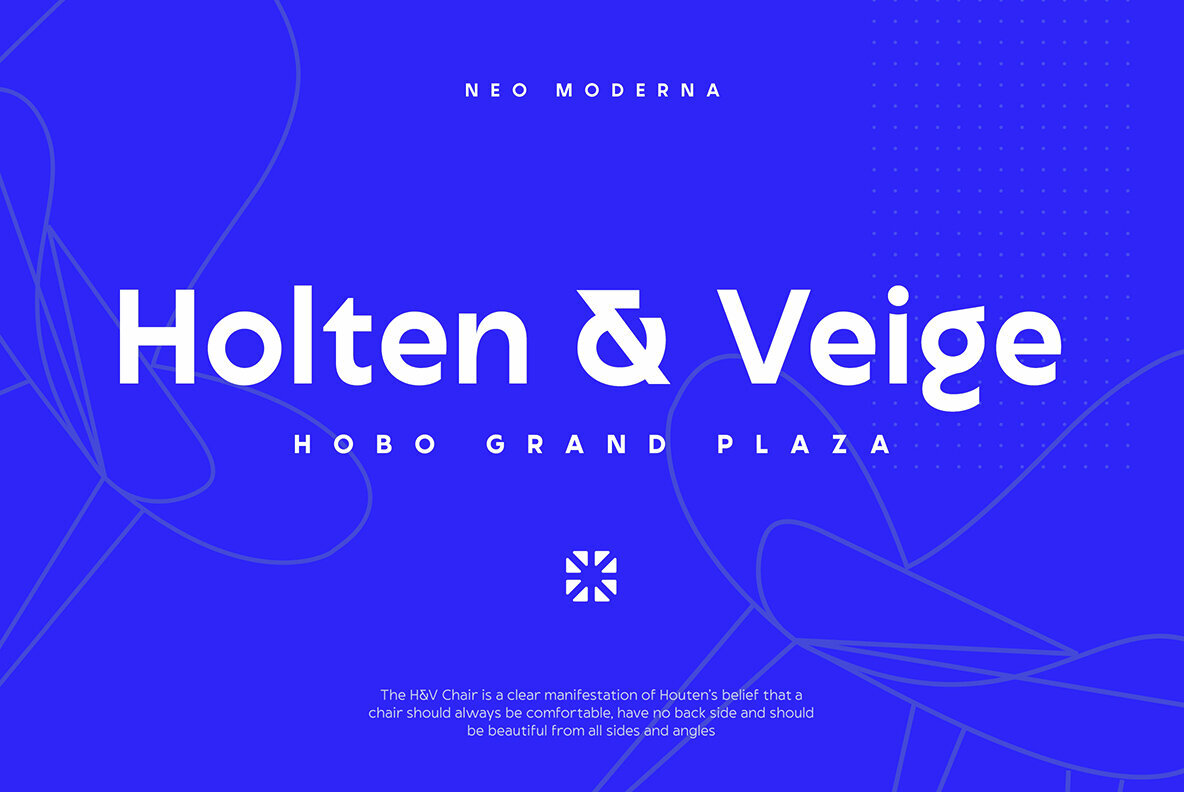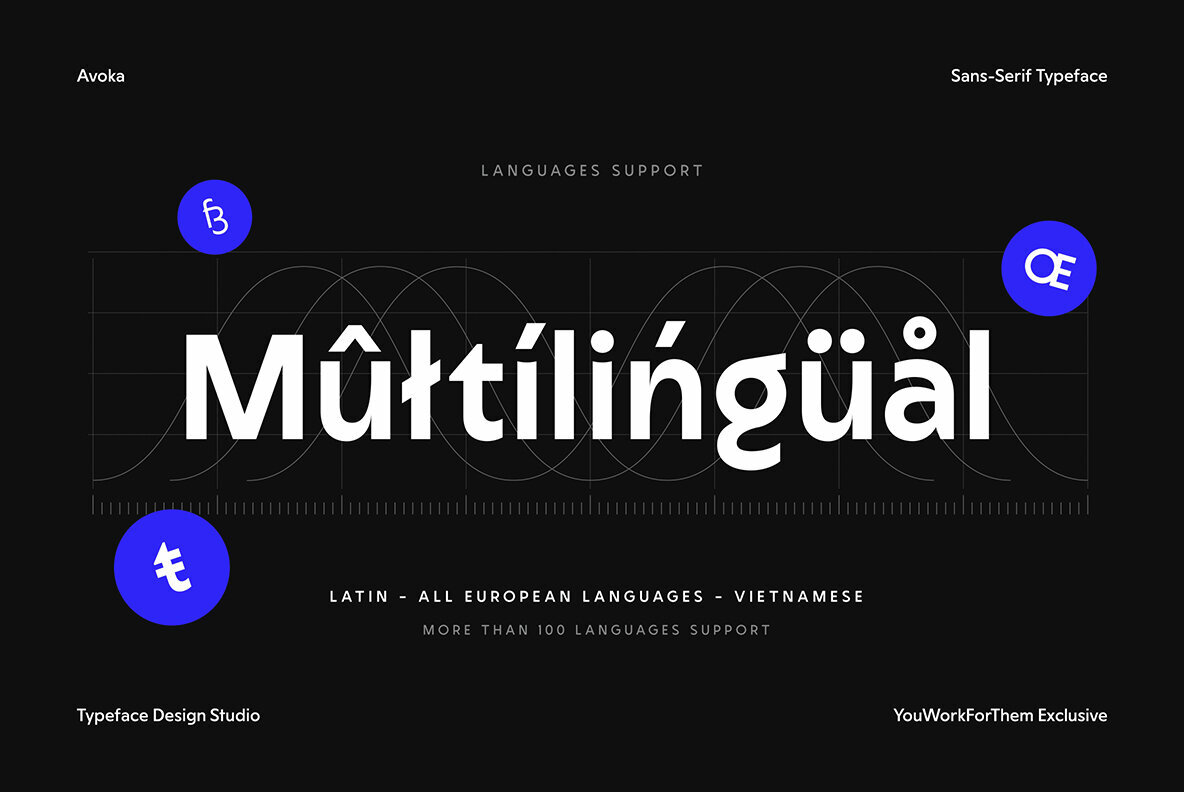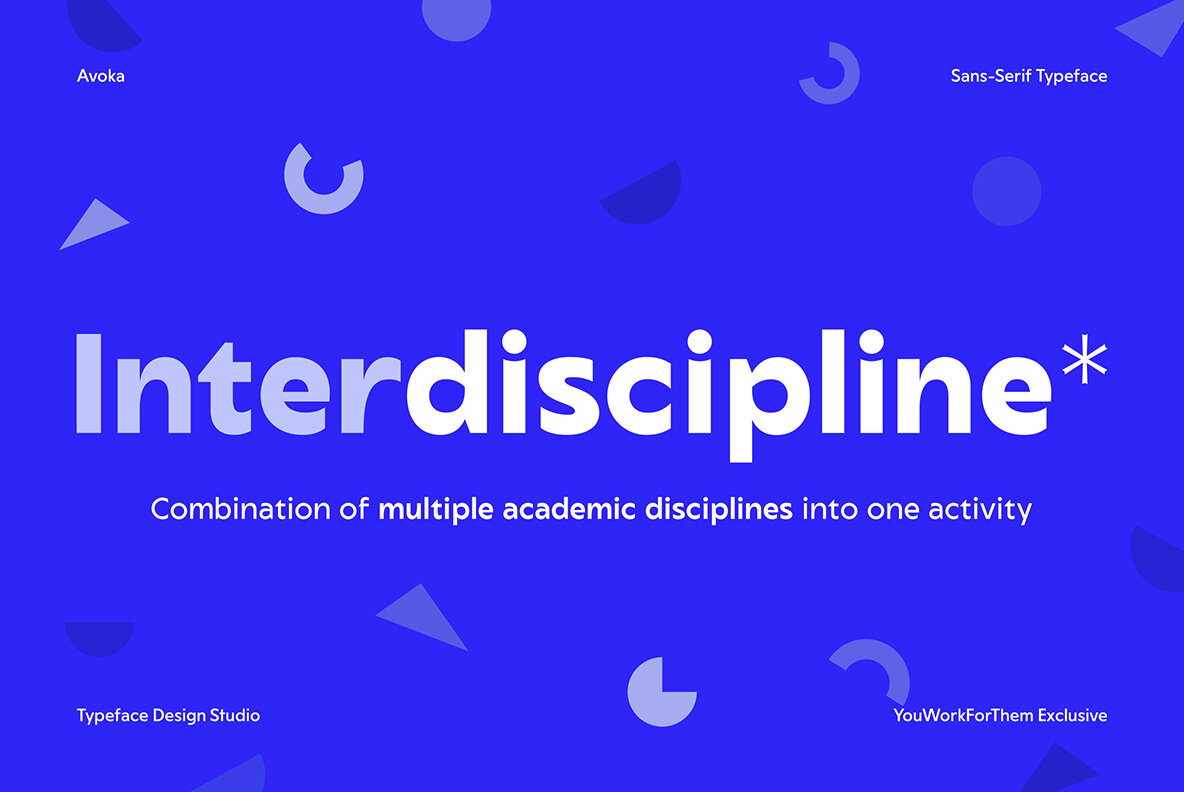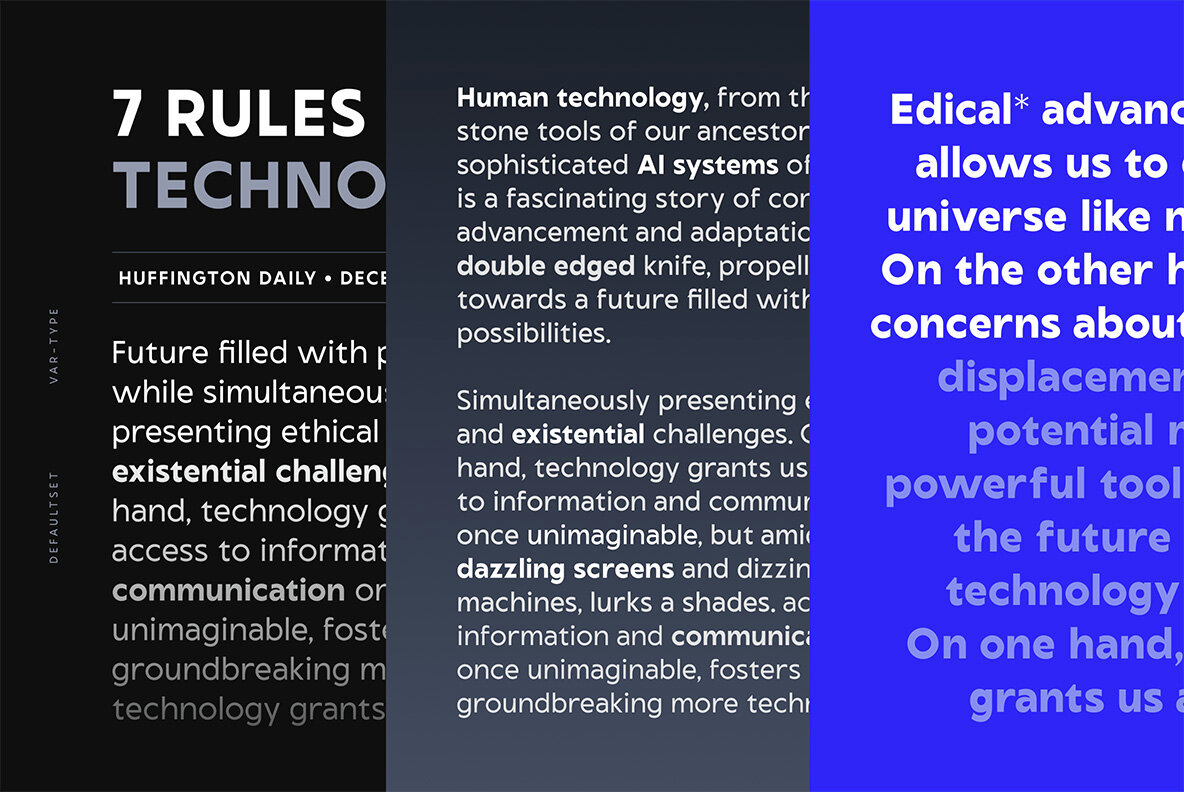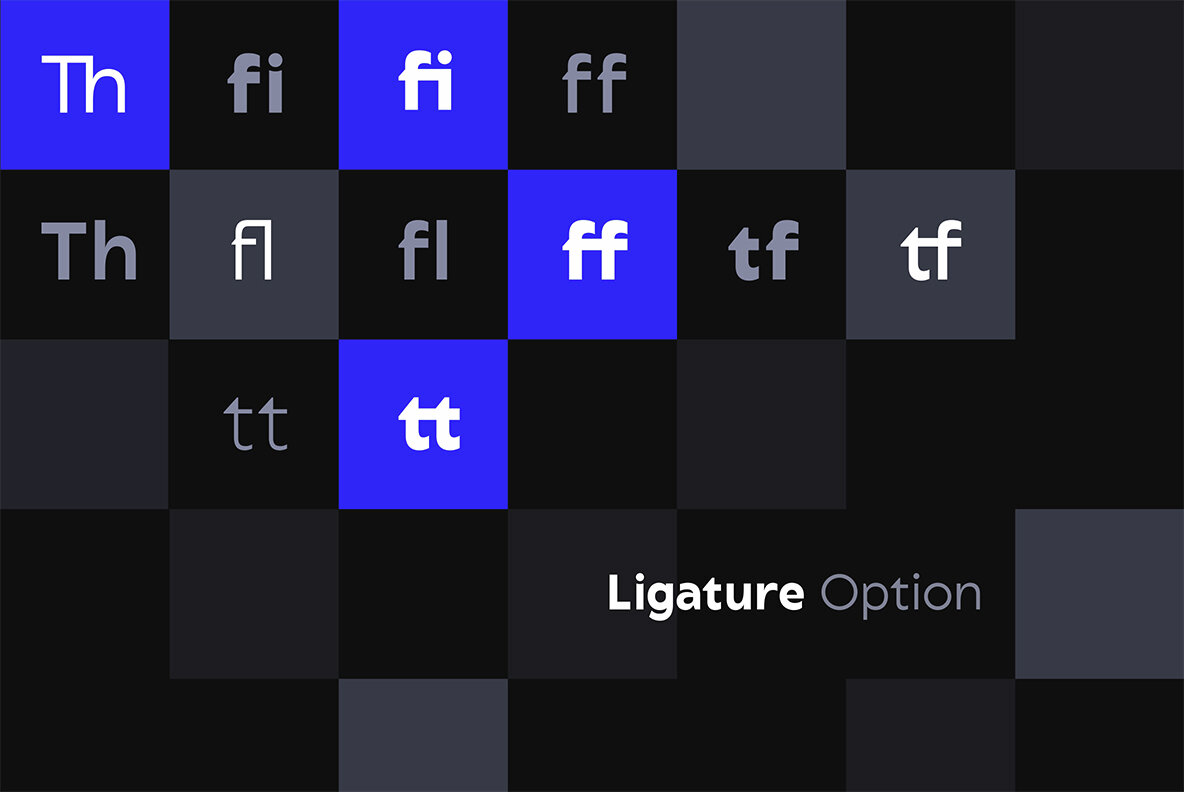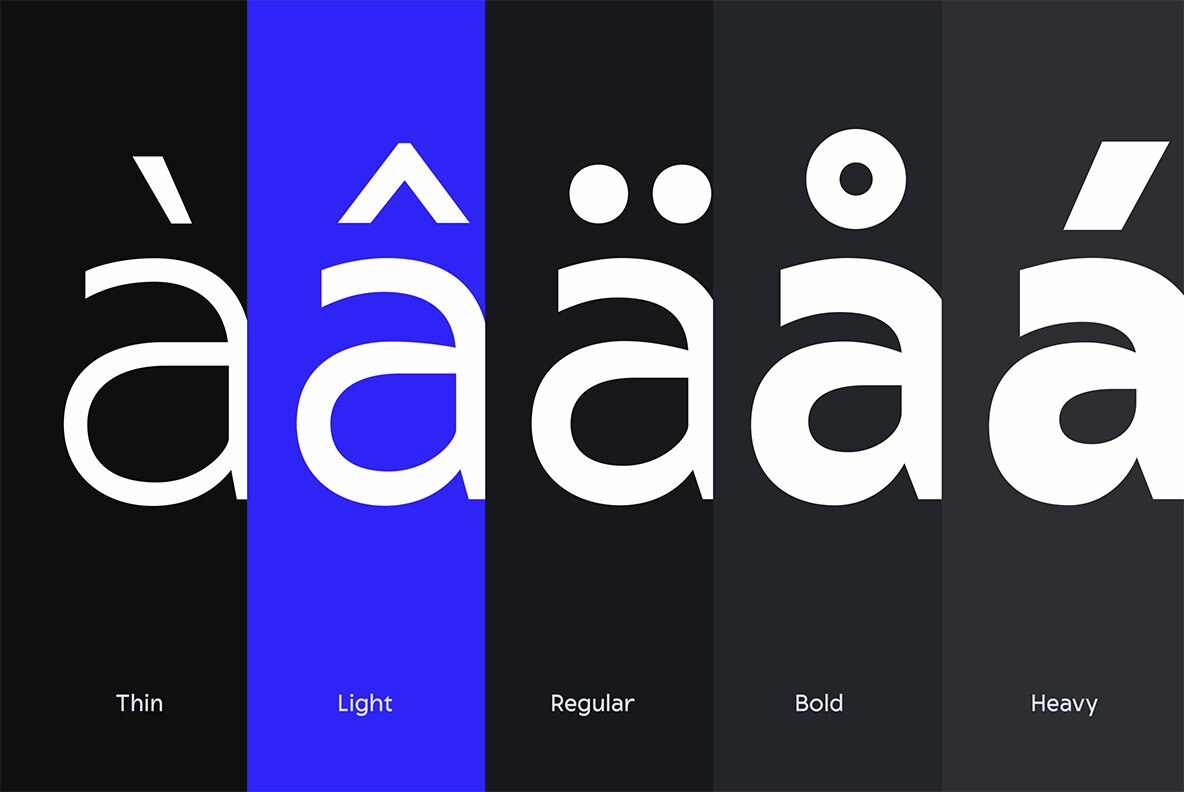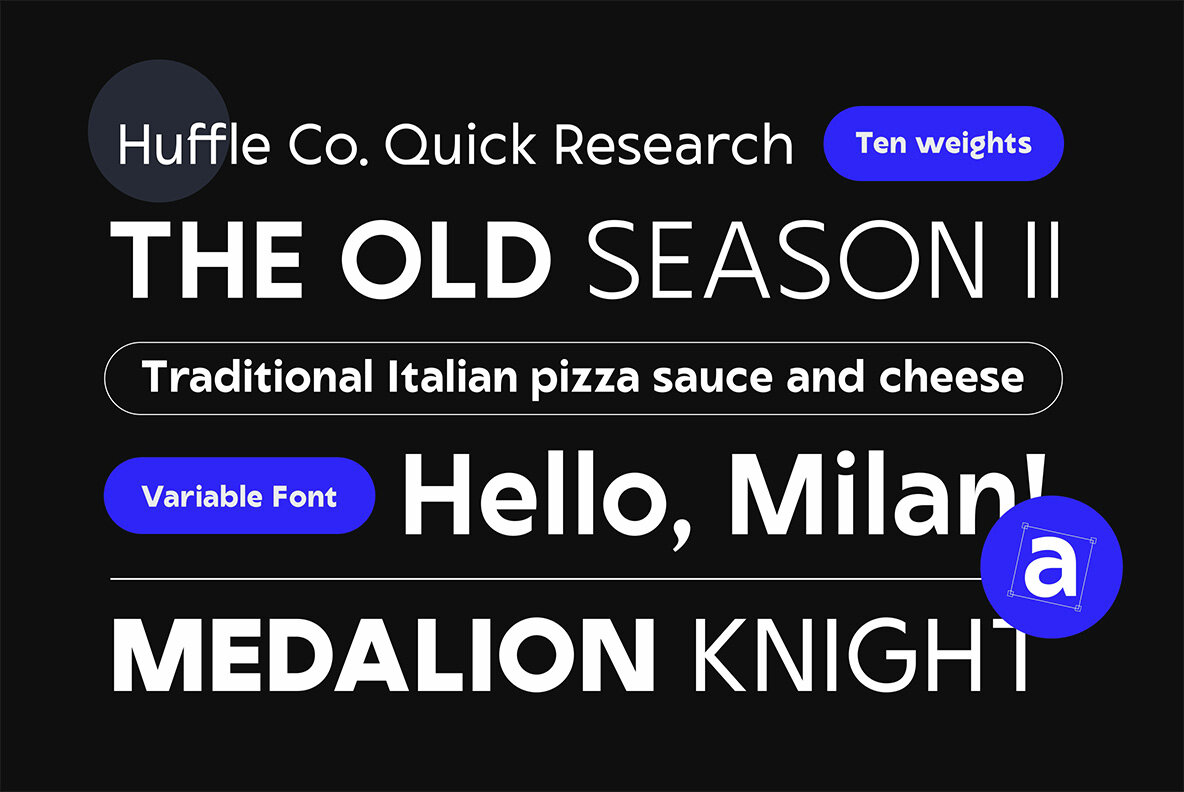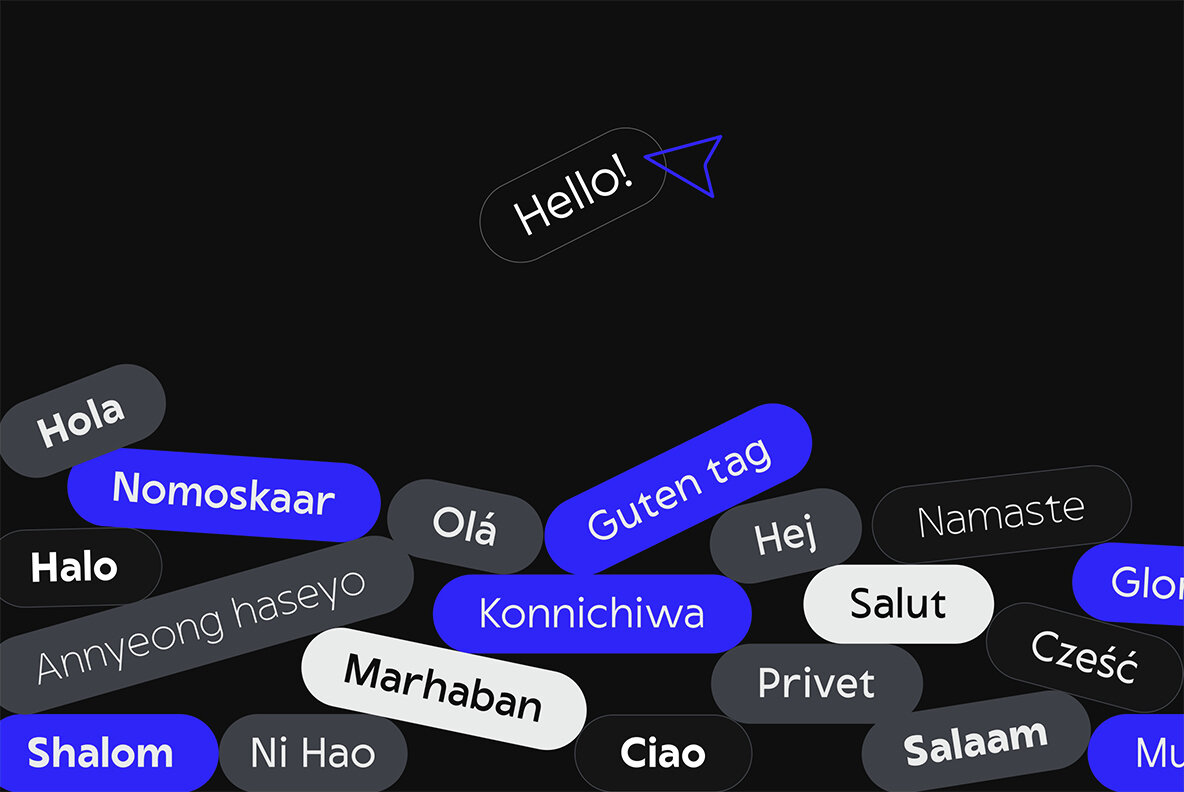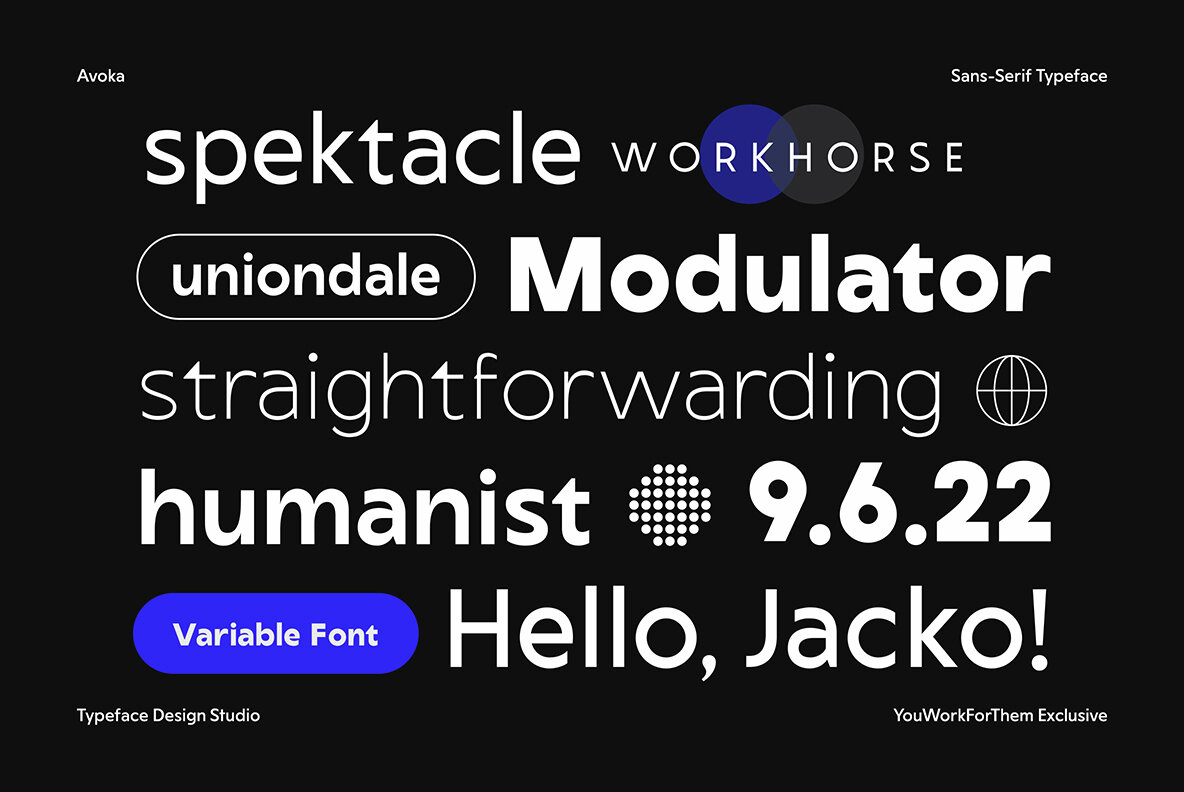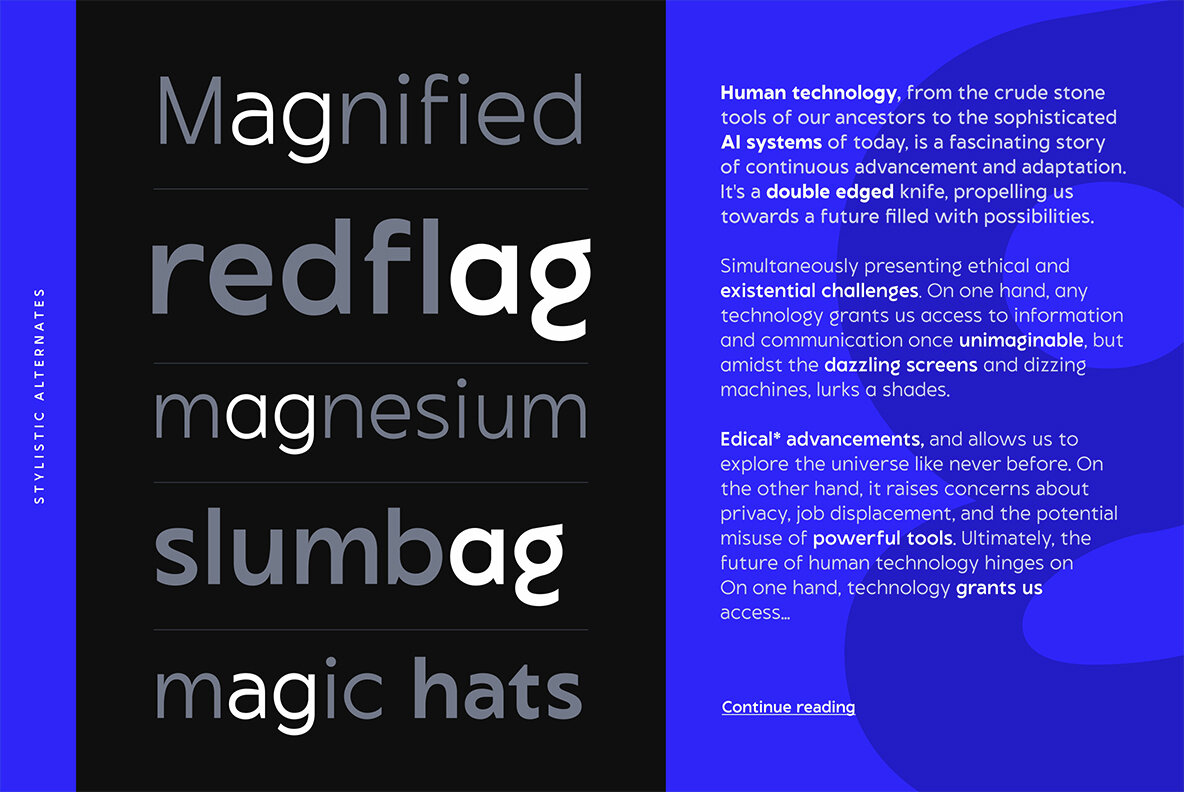
Avoka Font
Avoka offers a harmonious blend of geometric precision with the subtle warmth characteristic of humanist design, presenting a typeface that adapts to any creative endeavor. With its variable weight options, transition smoothly from delicate hairlines to bold statements, providing unparalleled flexibility. Drawing inspiration from classic geometric sans serifs, Avoka distinguishes itself with subtle curves that enhance warmth and readability, ensuring a modern yet sophisticated aesthetic. Its clean lines and consistent letterforms cater to the evolving needs of contemporary design. Avoka supports multiple languages and incorporates advanced OpenType features. Its versatility is evident, making it an excellent choice for branding, web design, editorial projects, and more.Avoka: Geometric Precision Meets Humanist Warmth